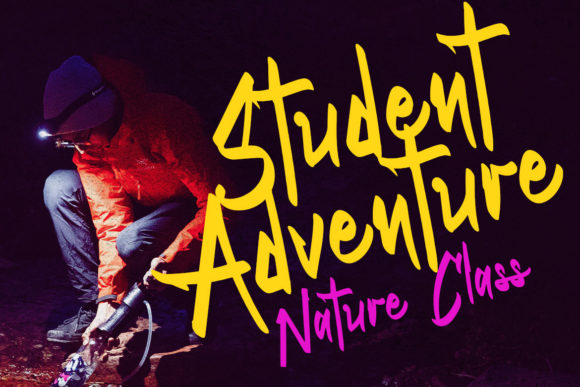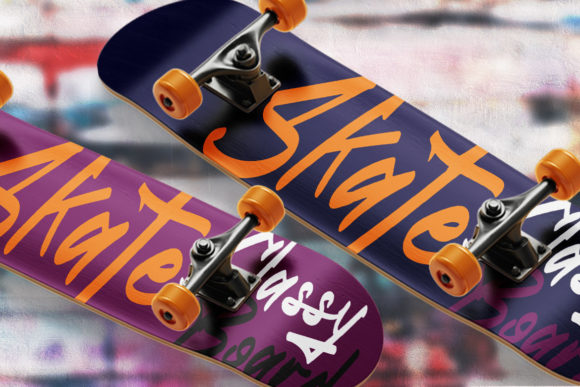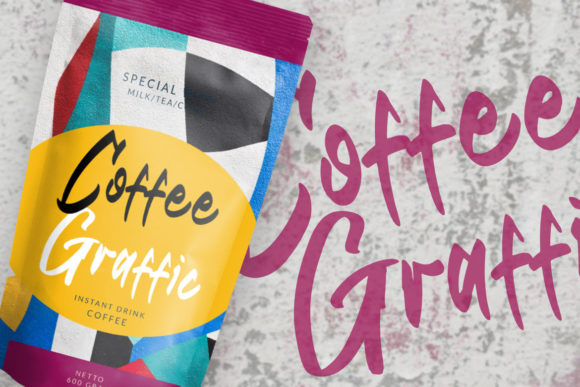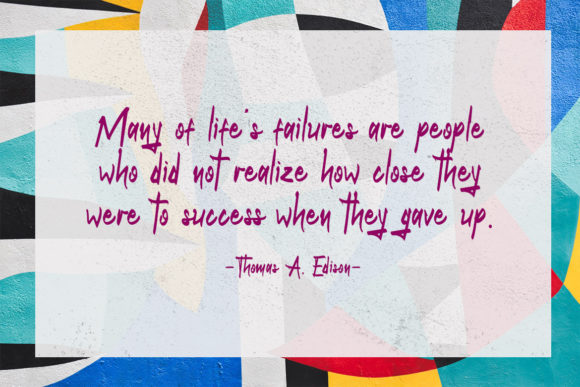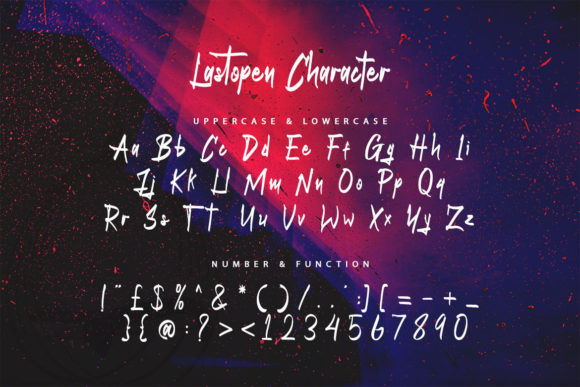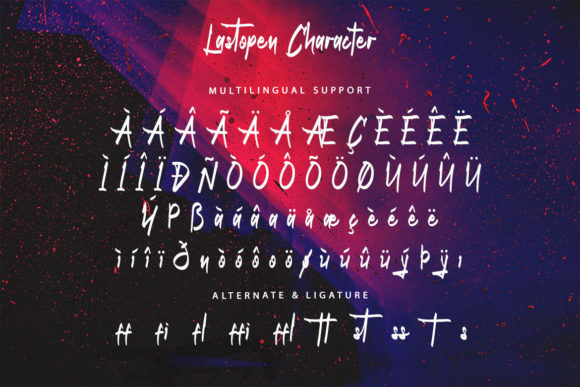
Introduction to Lastopen Font
Do you remember that moment when you stumbled upon the perfect font for your creative project? The one that made all the difference and took your design from good to great? For designers, finding the right font can be a game-changer. It’s the spark that ignites the creative process and brings your vision to life.
Today, we’re excited to introduce you to the Lastopen Font, a casual and relaxed handwritten font that’s sure to captivate your audience. With its high-quality design and versatility, this font is perfect for creating stunning posters, flyers, and prints. Whether you’re working on a personal project or a commercial design, the Lastopen Font is an invaluable resource that will elevate your designs to the next level.
Lastopen Font: A Free Download for Your Creative Project
- Unique characteristic: The Lastopen Font features a distinctive, hand-drawn style that adds a personal touch to any design.
- Perfect for use in logos, branding materials, and other design elements where a high-quality font is essential.
Honest Review: Lastopen Font
I recently stumbled upon the Lastopen Font while searching for a free download for a creative project. I was blown away by its high quality and versatility. The font is perfect for designers looking for a clean and modern aesthetic.
The Lastopen Font has a transparent background, making it incredibly easy to use in any design scenario. Its simplicity is both its strength and weakness, but we’ll get to that later.
- ✨ High-quality design with a modern aesthetic
- ✨ Versatile and easy to use
- ⚠️ Limited character set and language support
- ⚠️ Not suitable for complex or detailed designs
Overall, the Lastopen Font is a solid design resource that I would recommend to anyone looking for a clean and modern font. However, it’s essential to be aware of its limitations and use it accordingly.
Lastopen Font
Lastopen Font is a high-quality, free download design resource that offers a transparent background, making it perfect for creative projects. With its sleek and modern design, this font is ideal for various applications.
Tips for Getting the Most Out of Lastopen Font
To get the most out of Lastopen Font, use it in conjunction with other design resources, such as icons and graphics. Experiment with different font sizes, colors, and alignments to create a unique look for your creative project.
Common Use Cases for Lastopen Font
Lastopen Font is commonly used in digital marketing materials, social media graphics, and business presentations. Its modern design makes it perfect for creating eye-catching and professional-looking designs.